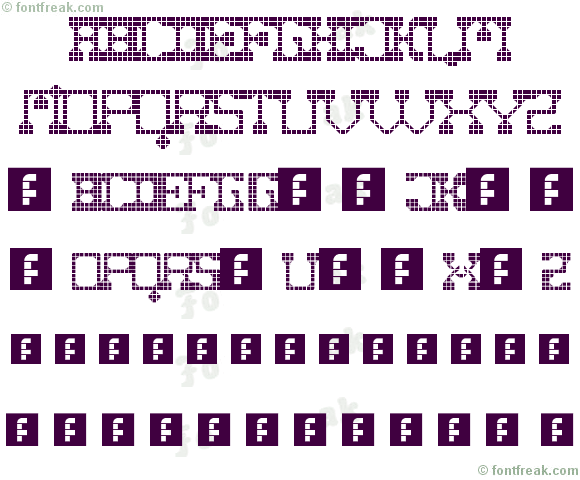
Fat Cowboy SQUARE Regular
Fat Cowboy SQUARE Regular, designed by Manuel Viergutz in 2009, is a distinctive display font that embodies a bold, playful aesthetic. This freeware font falls into the decorative category, characterized by its heavy stroke weight and square forms, giving it a robust and attention-grabbing presence. The design features minimal contrast, which enhances its blocky appearance, making it perfect for a variety of creative applications. With its unique square shapes and uniform spacing, Fat Cowboy SQUARE Regular creates a sense of stability while still being visually striking.
This font is ideal for use in a variety of contexts, including eye-catching movie posters, vibrant restaurant menus, and engaging promotional materials. Its playful nature makes it a great fit for children's events or products, where a sense of fun is essential. Small business owners can leverage this font for branding, especially in industries related to food, entertainment, or family-oriented services. Additionally, graphic designers and content creators will find it useful for creating memorable logos and advertisements that stand out in crowded marketplaces.
The target audience for Fat Cowboy SQUARE Regular includes graphic designers looking for a unique typeface, small business owners who want to make a lasting impression, and content creators in need of a distinctive visual style. This font's unique design elements set it apart from more traditional typefaces, making it a memorable choice for any project.
Overall, the Fat Cowboy SQUARE Regular font free download offers a fresh perspective on decorative typography, combining boldness with a sense of fun. Its distinctive square shapes and playful style ensure that it will capture attention and enhance any design project. Whether for print or digital use, this font is sure to make a statement.